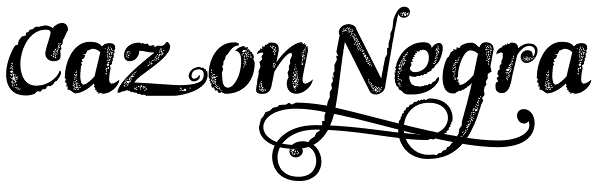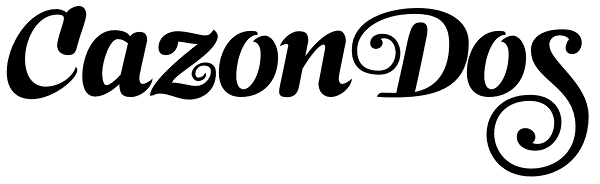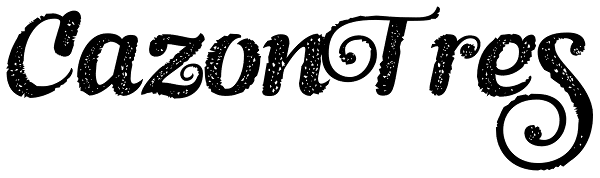
Cazon
Cazon is a gorgeous script font that can be used to add an immediate chalk painted feel to a piece of design work. This font was designed by Carlos Fabian Camargo. It has 7 fonts inspired by typical signs drawn on the boards of the popular market of La Guaira town in Caracas, Venezuela.